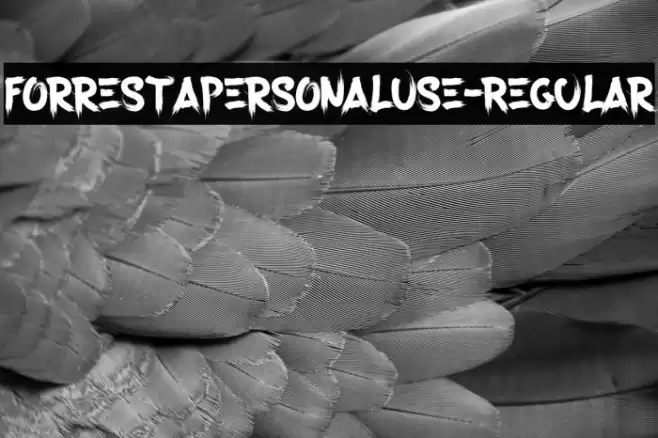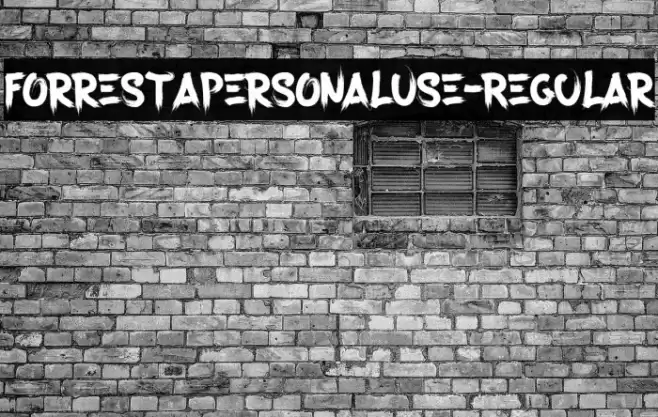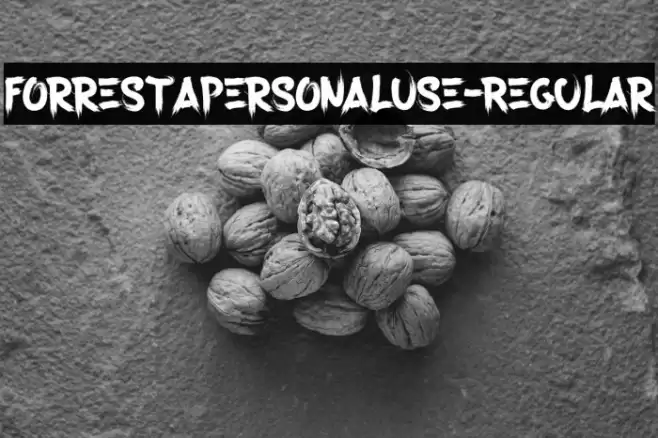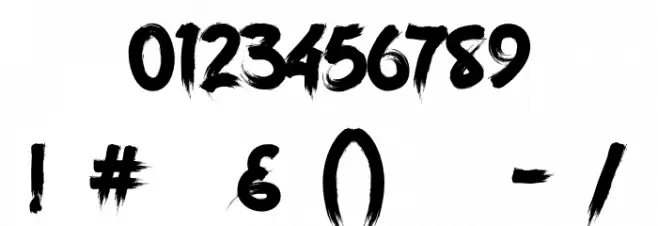
ForrestaPersonalUse-Regular Font
ForrestaPersonalUse-Regular Description
This font features a bold and dynamic brushstroke style, giving it an energetic and raw appearance. The characters are crafted with uneven edges and varying stroke thickness, creating a sense of movement and intensity. The uppercase and lowercase letters maintain a consistent style, with a slightly aggressive flair that suggests a sense of urgency or excitement. The numerals and special characters are designed to match the overall aesthetic, ensuring a cohesive look across all text elements. This font's unique style makes it stand out, ideal for projects that require a strong visual impact.
A bold, brushstroke font with dynamic and energetic styling from Regular fonts.
- Proposed Projects: Ideal for posters, album covers, event flyers, and branding that requires a strong, artistic touch.
- Overall Style: Modern, Artistic